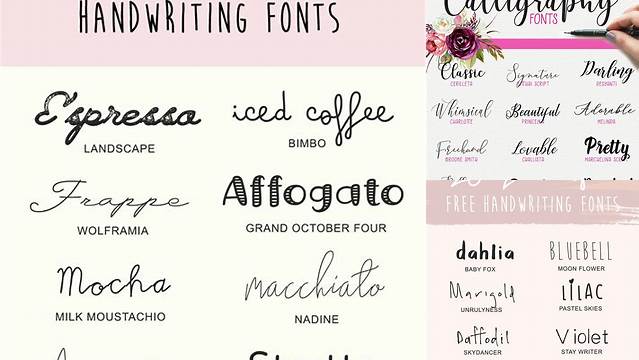
Free Handwriting Fonts: Copy & Paste Styles For Your Projects
Are you looking to add a personal touch to your digital projects? Look no further! In this comprehensive guide, we'll dive into the world of handwriting fonts, exploring how you can easily copy and paste them for free. We'll cover everything from finding the perfect font to using it across various platforms and even creating your own unique handwriting style. So, whether you're designing invitations, crafting social media posts, or simply want to spice up your documents, get ready to unleash the power of handwritten text! Let's get started, guys!
Why Use Handwriting Fonts?
Handwriting fonts bring a unique, human element to any design. Unlike standard, often sterile, computer fonts, handwriting fonts evoke a sense of authenticity and personality. They can make your text feel more approachable, friendly, and engaging. Think about it – a handwritten note carries so much more weight than a typed one, right? This same principle applies to digital designs. Using a handwriting font can instantly add a touch of warmth and individuality to your projects, helping you stand out from the crowd. In marketing, for example, using a handwritten font in your logo or branding can create a more personal connection with your audience. For personal projects, like invitations or thank-you notes, a handwriting font adds a special, heartfelt touch that makes the message feel more genuine and sincere. These fonts are also fantastic for creating a more relaxed and informal tone, perfect for social media graphics or blog posts. Plus, they're just plain fun! Experimenting with different handwriting styles can unlock a new level of creativity in your designs. Whether you're going for a playful, whimsical look or a sophisticated, elegant feel, there's a handwriting font out there to match your vision. So, ditch the boring defaults and embrace the charm and personality that handwriting fonts can bring to your projects.
Finding Free Handwriting Fonts
Copying and Pasting Handwriting Fonts
Using Handwriting Fonts Across Different Platforms
Creating Your Own Handwriting Font
Want to take your handwriting font game to the next level? Why not create your own? Designing your own handwriting font might seem daunting, but it's actually quite achievable with the right tools and a little patience. Plus, it's a fantastic way to express your unique personality and create a truly one-of-a-kind font. So, how do you go about creating your own handwriting font? There are two main approaches: using font creation software or using online font generators. Let's start with font creation software. These programs offer the most control and flexibility over the design process, allowing you to create a professional-quality font from scratch. Popular options include FontLab Studio, Glyphs, and FontForge (which is free and open-source). These tools typically involve drawing each letter, number, and symbol individually, and then fine-tuning the spacing and kerning to ensure the font looks consistent and readable. While font creation software can be a bit complex to learn, it's the best option if you want to create a highly polished and customized font. If you're looking for a simpler and more user-friendly approach, online font generators are a great option. These tools allow you to create a handwriting font by scanning or uploading samples of your handwriting. You typically print out a template, write the letters and symbols within the designated boxes, and then scan or photograph the template. The online font generator then converts your handwriting into a digital font file that you can download and use. Some popular online font generators include Calligraphr, FontStruct, and YourFonts. While online font generators offer less control over the design process than font creation software, they're a much quicker and easier way to create a handwriting font, especially if you're a beginner. No matter which approach you choose, the key to creating a great handwriting font is consistency. Try to maintain a consistent letterform, stroke weight, and spacing throughout the font. It's also helpful to test your font in different sizes and contexts to ensure it's readable and aesthetically pleasing. Creating your own handwriting font is a rewarding and creative process. It allows you to translate your personal style into a digital format that you can use in all your projects. So, give it a try, and unleash your inner font designer!
So, there you have it, guys! Everything you need to know about handwriting fonts, from finding them for free to copying and pasting them across different platforms, and even creating your own. Handwriting fonts are a powerful tool for adding a personal touch to your designs, whether you're working on a professional project or a personal one. They evoke a sense of warmth, authenticity, and individuality that standard computer fonts simply can't match. Remember, finding the perfect handwriting font is just the first step. Once you've found a font you love, make sure to install it correctly and understand the licensing terms. Then, experiment with using it in different applications and contexts to see how it can enhance your designs. And if you're feeling adventurous, why not try creating your own handwriting font? It's a fun and creative way to express your unique style and add a truly personal touch to your work. Whether you're designing invitations, crafting social media posts, or simply want to spice up your documents, handwriting fonts are a fantastic way to make your text stand out. So, go ahead, explore the world of handwritten typography, and unleash your creativity! I hope this guide has been helpful, and happy designing!